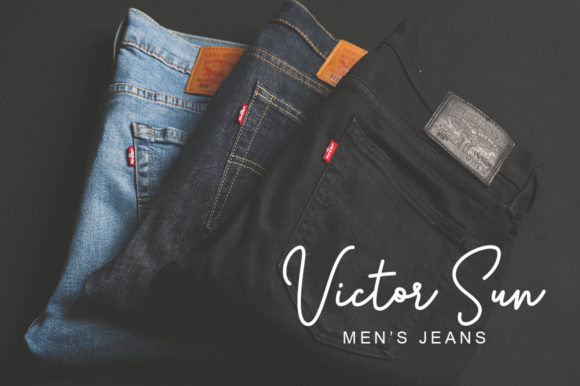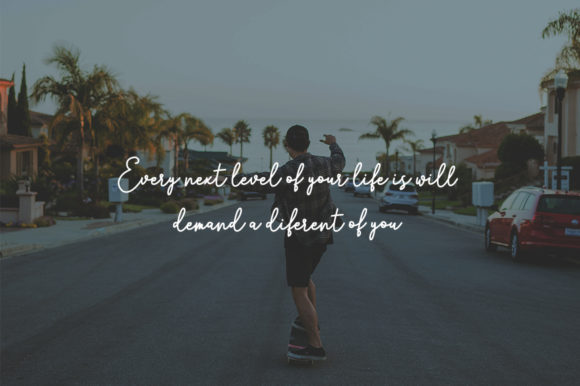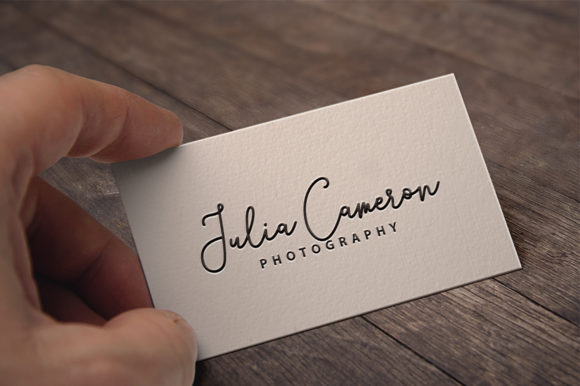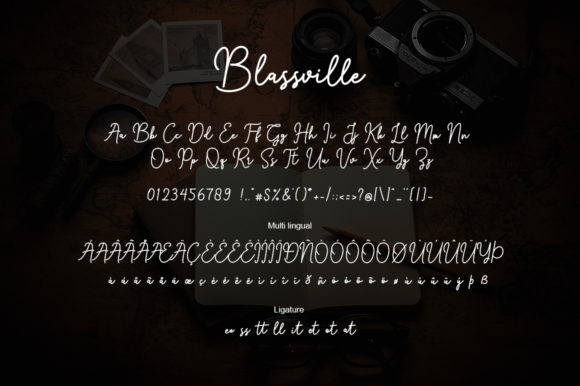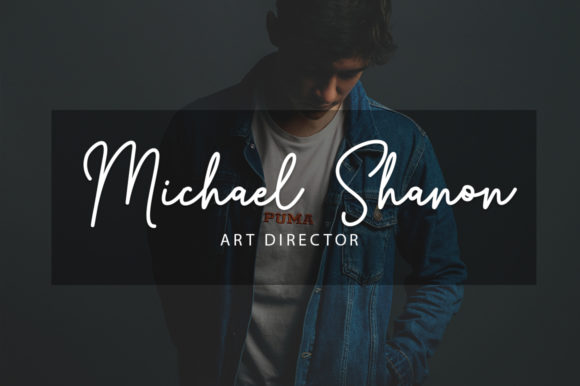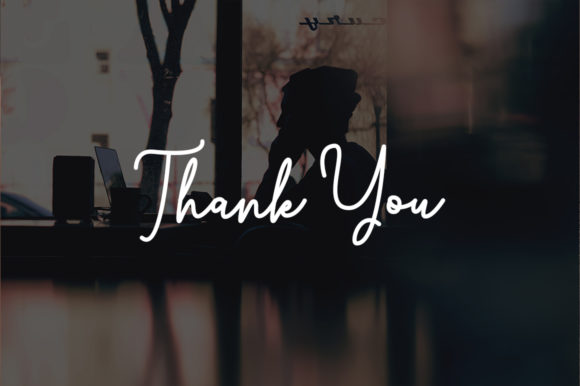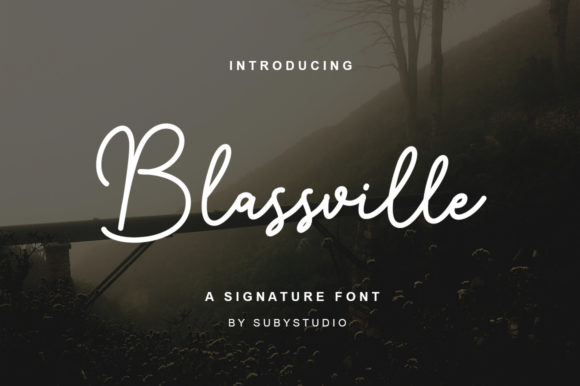
The Blassville Font: A Casual yet Elegant Handwritten Delight
I’ll never forget the design project that led me to discover the Blassville font. I was working on a branding project for a boutique craft business, and I was struggling to find the perfect font to capture their unique, handmade vibe. The client wanted something that felt effortless, yet elegant – and I was determined to deliver. After hours of scouring font libraries and testing out different options, I stumbled upon Blassville. And let me tell you, it was love at first sight! 💕
So, what makes Blassville so special? Here are a few things I love about this beautiful font:
• Casual yet elegant: Blassville strikes the perfect balance between laid-back and sophisticated. It’s perfect for designs that need a touch of whimsy, but still want to look polished.
• Effortless vibe: This font has a relaxed, handwritten feel that’s perfect for creating a sense of ease and approachability in your designs.
• 💫 Unique character: Blassville has a distinct personality that sets it apart from other handwritten fonts. It’s perfect for adding a touch of personality to your designs.
Of course, no font is perfect, and Blassville does have a few small quirks:
• 🤔 Limited use in very formal designs: While Blassville is elegant, it’s still a casual font at heart. It may not be the best choice for very formal or corporate designs.
• ⚠️ Some letters may require adjustment: Depending on the word or phrase, some letters may need to be adjusted to get the perfect spacing and flow.
The Story Behind Blassville
Blassville was designed by a talented font designer who wanted to create a font that captured the essence of effortless elegance. The story goes that the designer was inspired by the casual, handwritten notes they used to exchange with friends and family. They wanted to bottle up that feeling in a font that would make designs feel more approachable and relaxed.
What is Blassville font best used for? Blassville is perfect for designs that need a casual, yet elegant touch. It’s great for branding, packaging, and marketing materials.